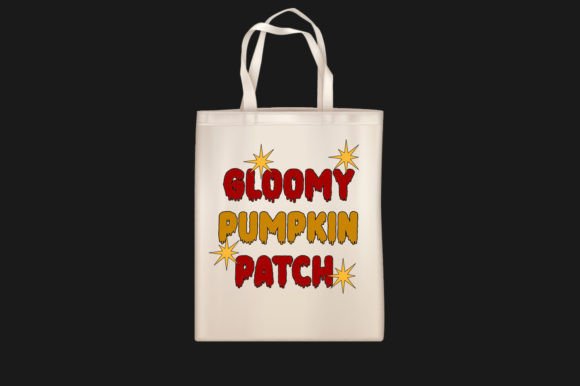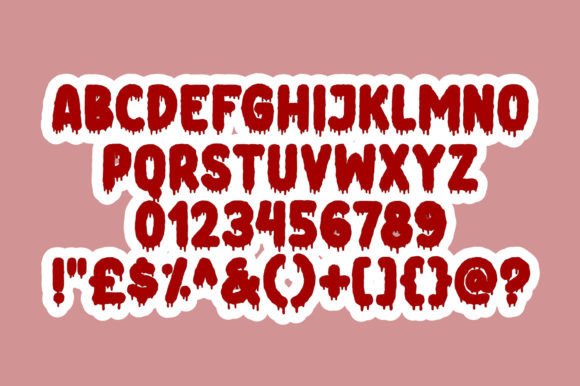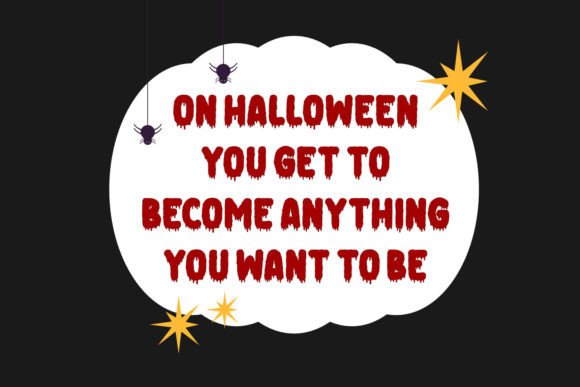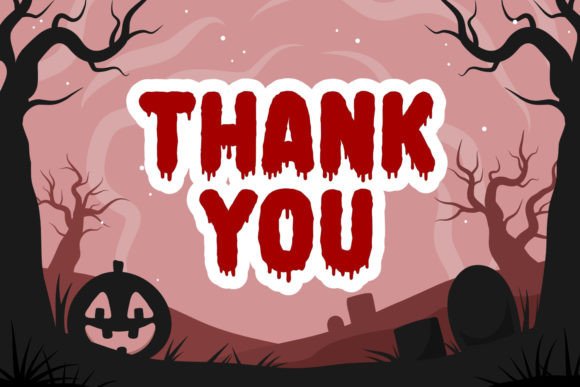
Introduction to Ghostic Sours Font
Immerse yourself in the chilling spirit of All Hallows’ Eve with our eerily evocative font.
The name of the game here is uncanny precision, embodied by its jagged contours and foreboding letter designs Every character in this font is artfully crafted, reminiscent of shadowy phantoms vanishing and appearing in a thick, suspenseful fog.